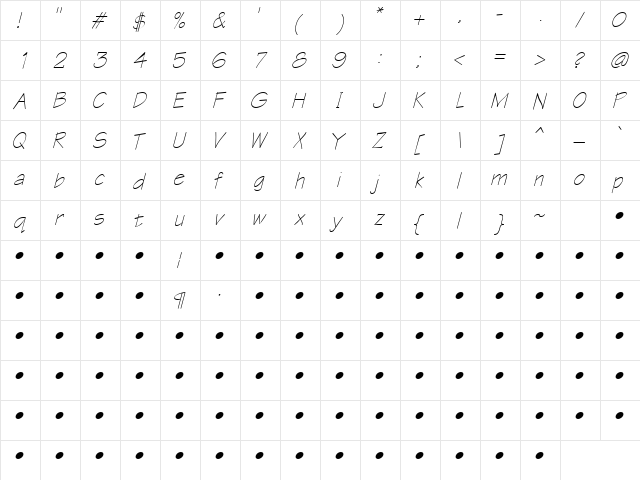
Stand 8 Italic
Design Context for Stand 8 Typeface
Stand 8 is a composed and adaptable typeface that performs quietly and consistently across a wide range of design contexts. The slanted form adds forward momentum and visual energy.
Pro Tip: Try Stand 8 for annotation and caption copy alongside an upright companion — the contrast in angle creates a dynamic but ordered typographic system.